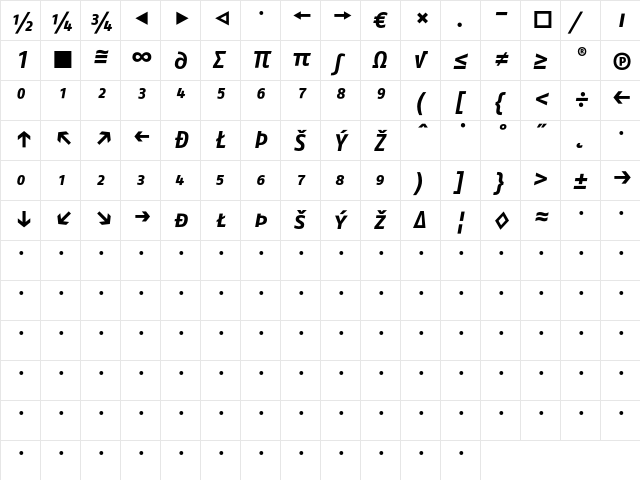
FagoNo BoldItalicCapsExp
Design Context for FagoNo Typeface
FagoNo takes a measured approach to typography — its balanced proportions and neutral character make it a reliable workhorse for both digital and print work. The slanted form adds forward momentum and visual energy. The heavy weight commands attention and anchors typographic hierarchies.
Pro Tip: Use FagoNo for emphasis, pull quotes, and subheadings where its slanted energy can add rhythm to the layout.